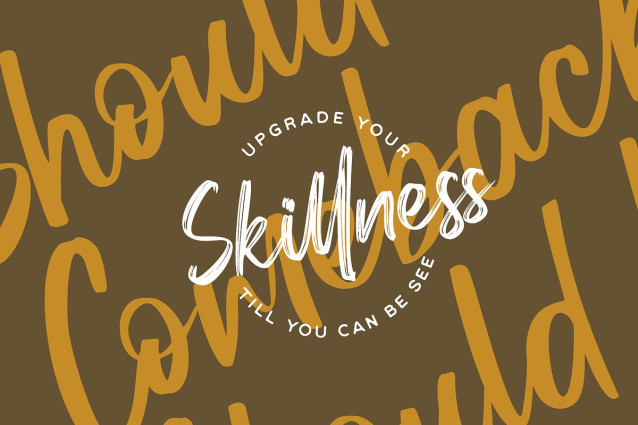
Should Be Comeback Font
Should Be Comeback Font is a dynamic handwritten font pack designed to bring warmth and personality to any project. Combining the charm of natural handwriting with clean, modern lines, this versatile set features 4 unique variations: Brush, Line, Clean Brush, and Sans. Whether you’re crafting branding materials, social media posts, product packaging, or wedding invitations, this font pack offers the perfect balance between expressive brush strokes and minimalistic sans-serif clarity.